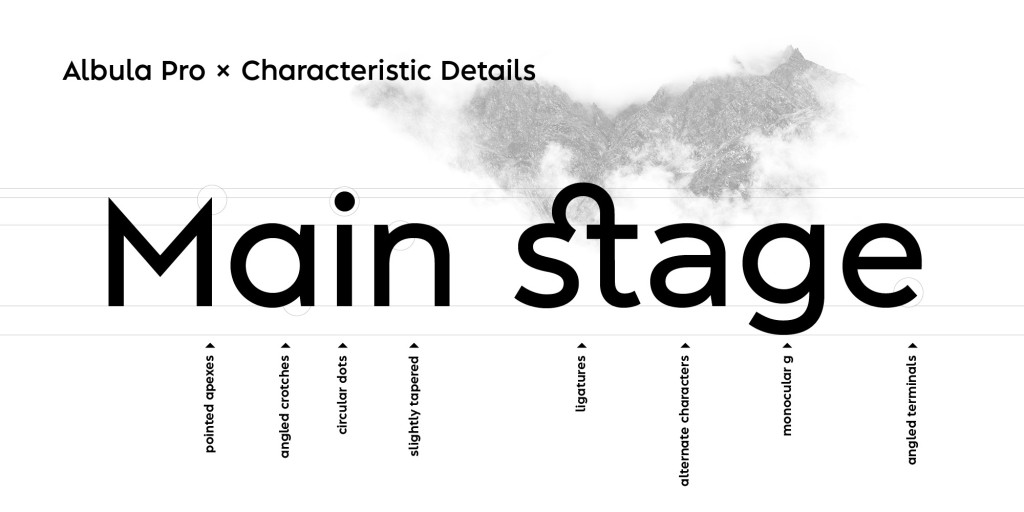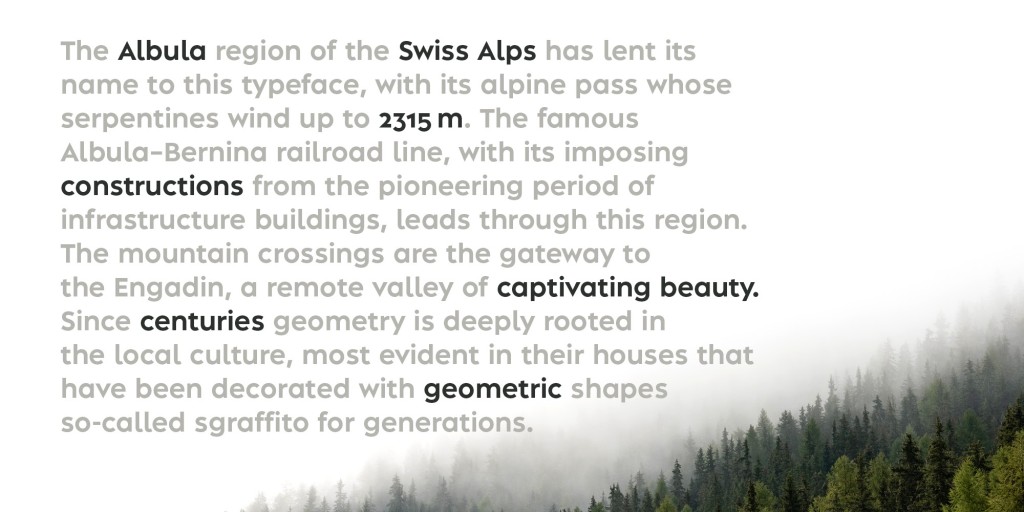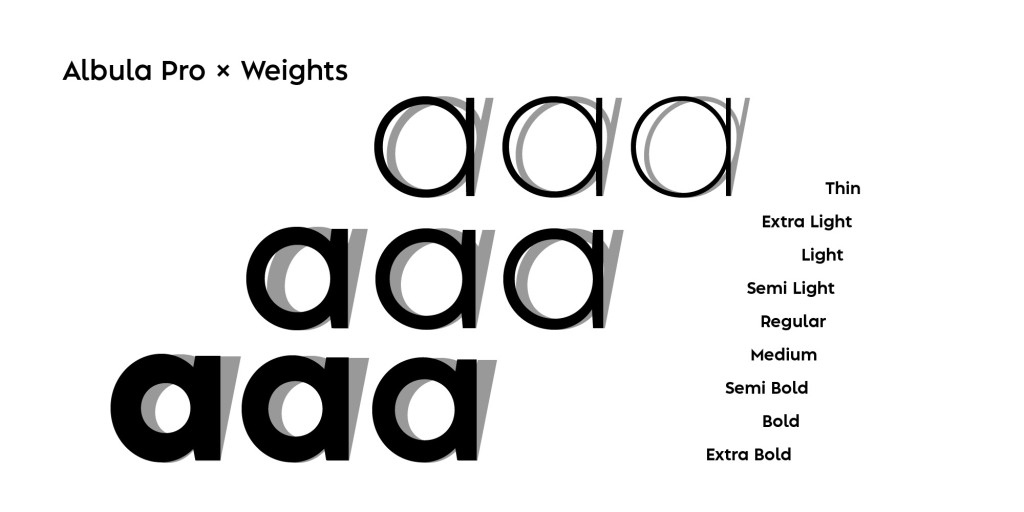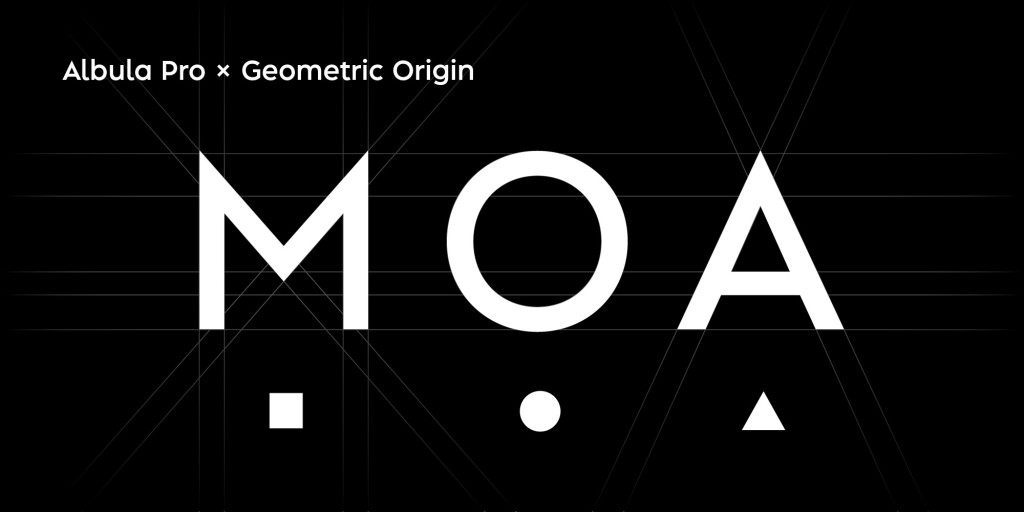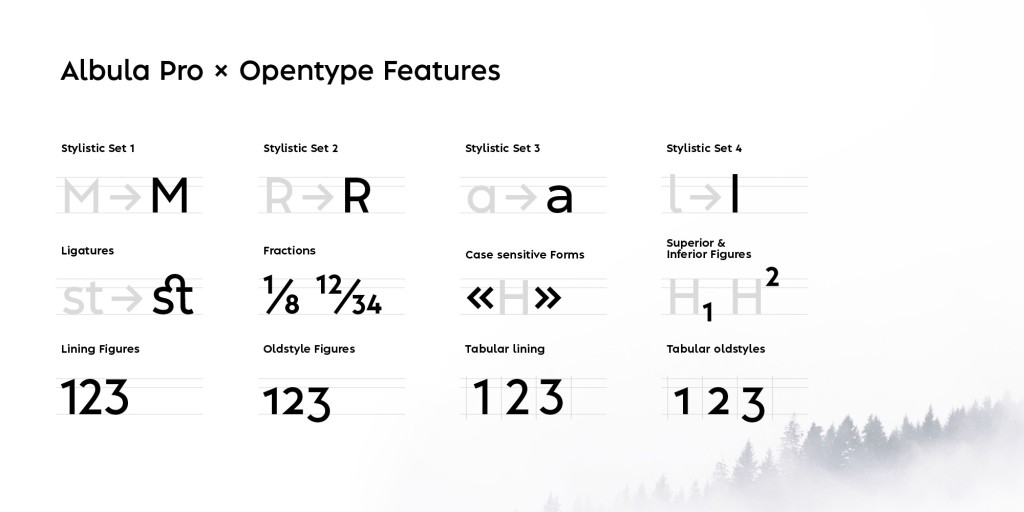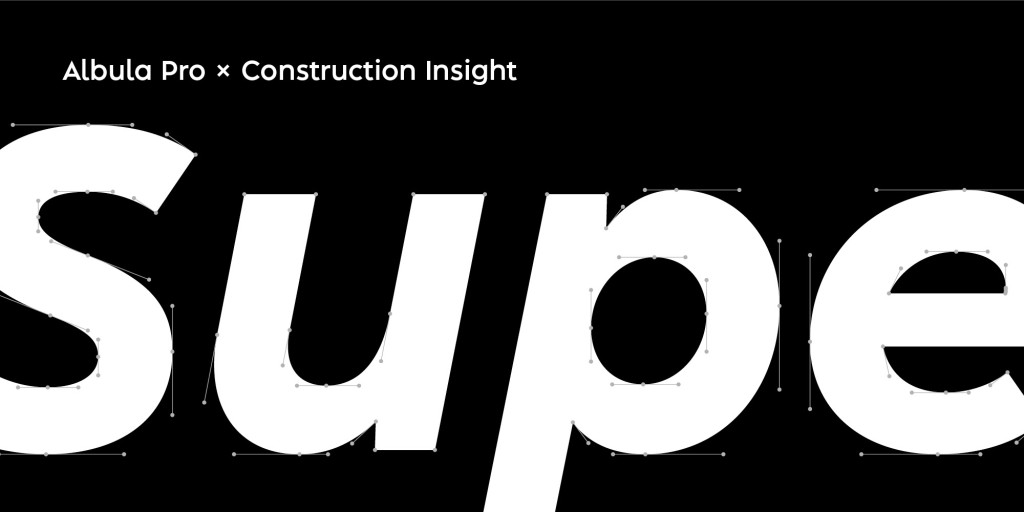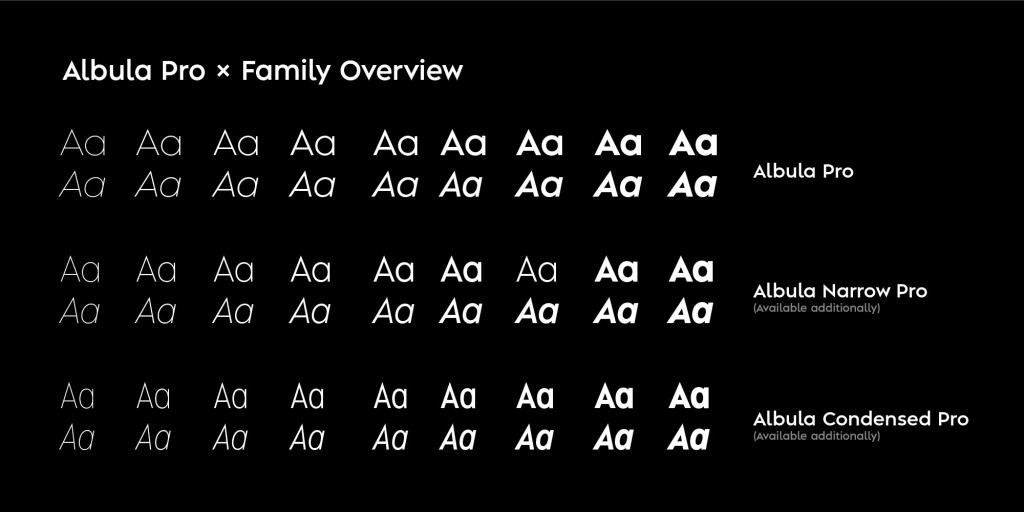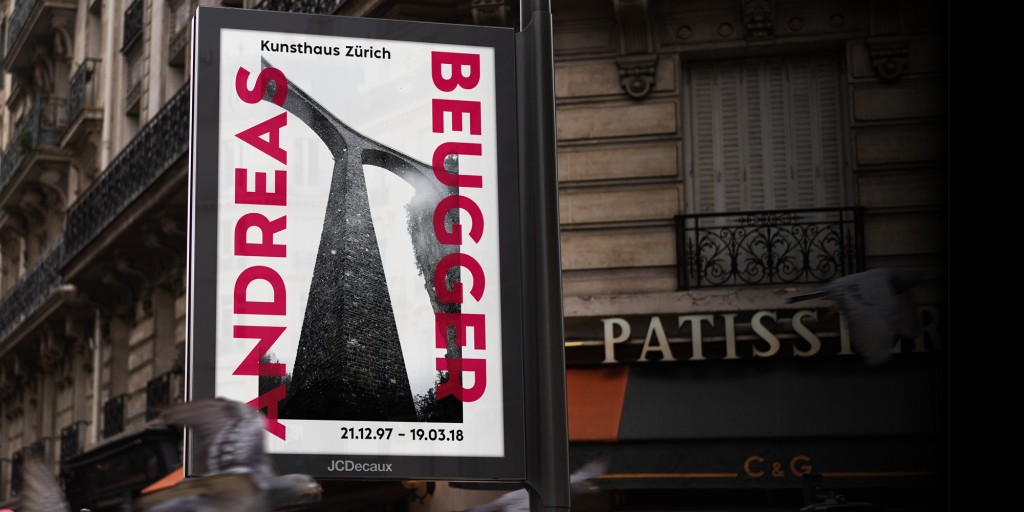
Albula Pro
A versatile Swiss sans-serif with 18 carefully crafted weights. Albula Pro combines geometric clarity with humanist warmth, making it ideal for editorial design, corporate identity, and digital interfaces.
Albula Pro is a contemporary geometric sans designed by Silvio Meier
Inspired by geometry and enhanced with unique form-details. The shapes are optically corrected in order to ensure an excellent reading experience and a broad professional use. Albula Pro is an ideal choice to make your design and layout stand out. It performs perfectly in the headlines as well as for the branding purposes.
When designing Albula Pro, great importance was attached to legibility, so that a good reading experience is guaranteed regardless the text length, which makes it an excellent option for editorial content.